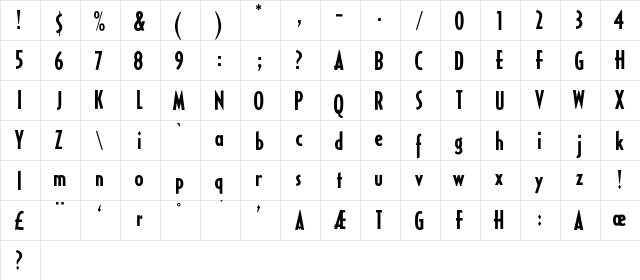
AuCasablanca Regular
Design Context for AuCasablanca Typeface
AuCasablanca takes a measured approach to typography — its balanced proportions and neutral character make it a reliable workhorse for both digital and print work.